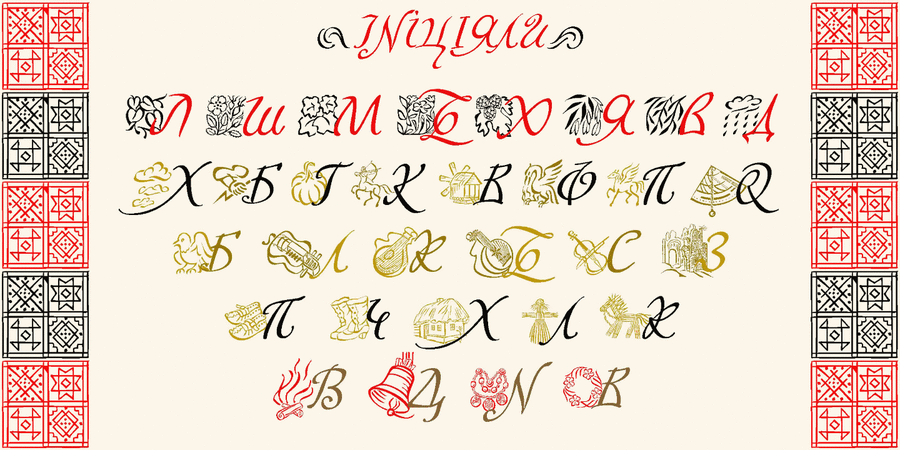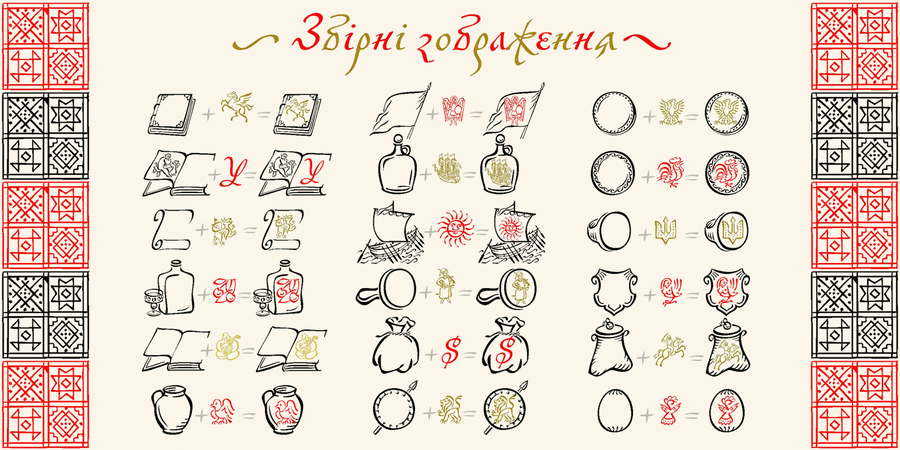
Logo font pair with Zluka Regular (1 of 24)About Skoropys17This typeface is a full, corrected and extended version of the font "Skoropys-XVII" with figures, full standard and old style Cyrillic, extended Latin, Greek, additional decorative elements, fleurons, and OpenType-features. It should be noted that the Cyrillic, Latin and Greek letters are able to replace each other with alternatives – this makes it possible to revive the handwritten string and bring the result closer to authentic examples. One of the characteristic features of the cursive, in particular Ukrainian, and at the same time a big problem for the digital fonts is a wide variety of graphemes, which fancifully alternate in the text and create a complex live rhythm. Alternatives in the font allow simple users to get the desired result with a simple glyph table. The font was designed by Victor Kharik and Gennady Zarechnyuk in 2016–2017.